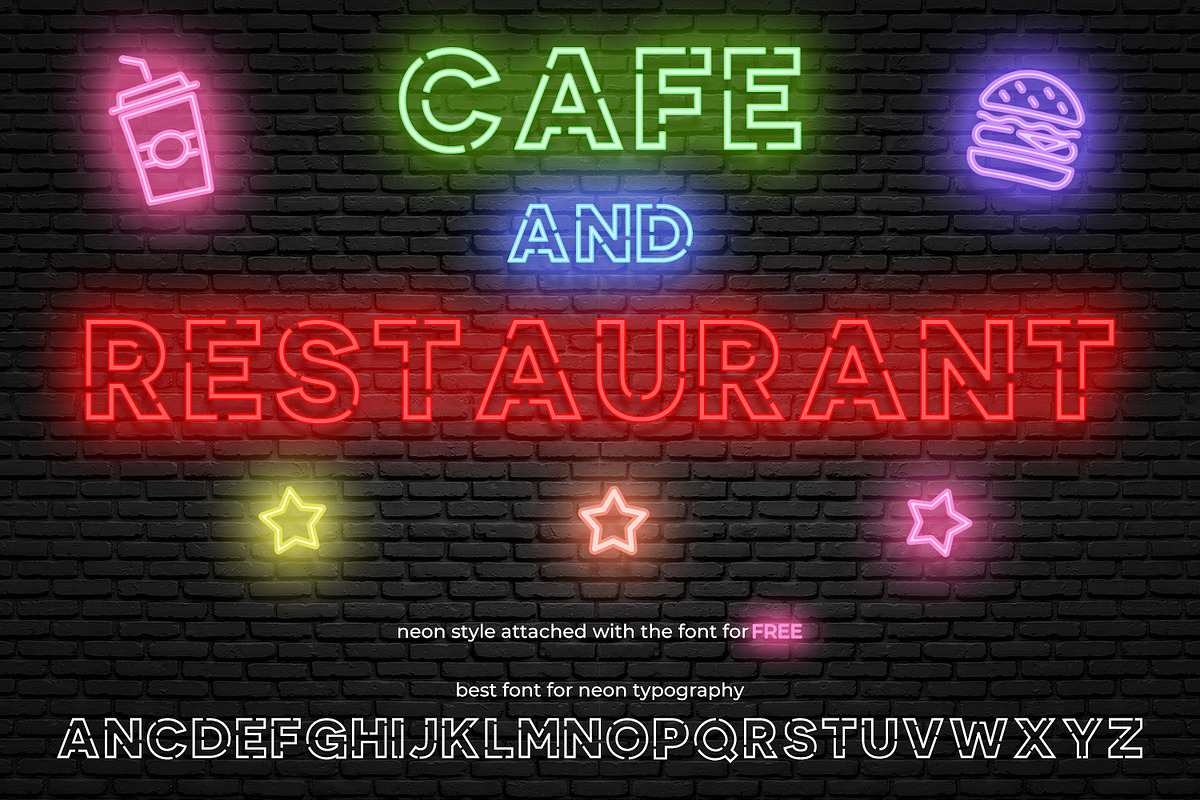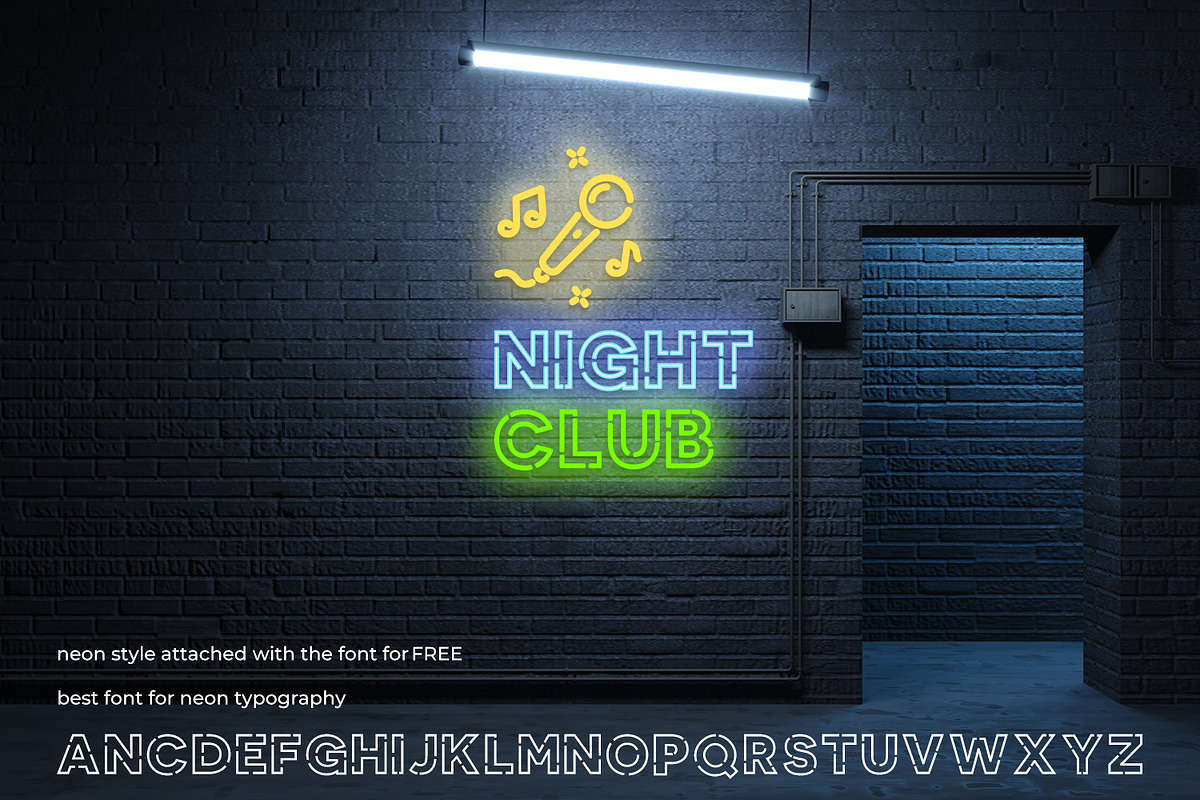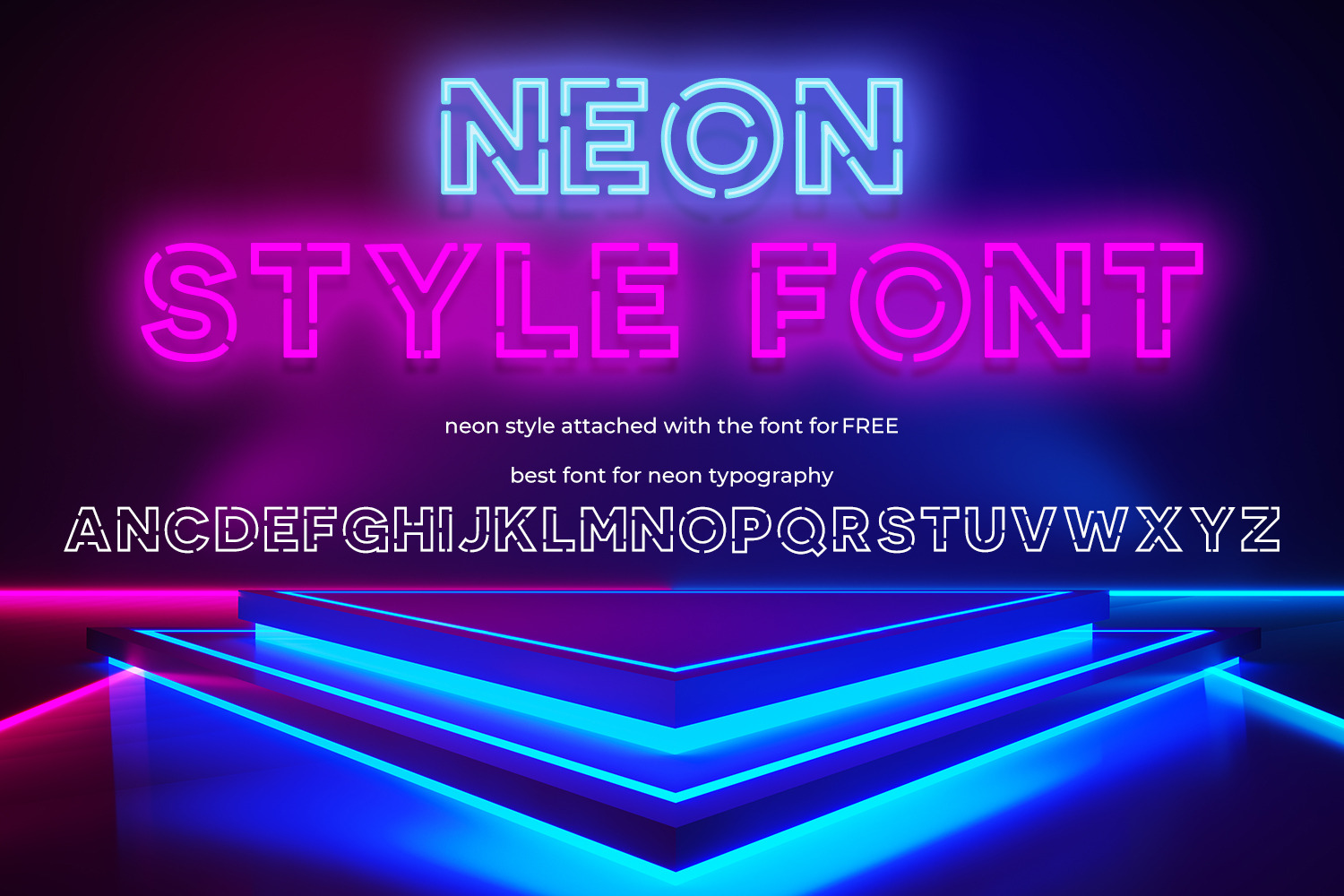
Neon Style Font
Neon Style is a unique display font. It will elevate a wide range of design projects to the highest level, be it branding, headings, wedding designs, invitations, signatures, logos, labels, and much more!